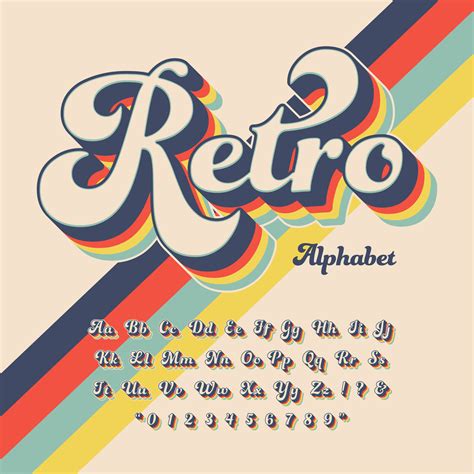
The Resurgence of Retro Font: Why This Unique Aesthetic Is Making Waves in the US
In recent years, a distinctive visual style has been making its way into the mainstream conversation: retro font. This nostalgic typography trend is captivating creative professionals, entrepreneurs, and everyday users alike, sparking curiosity and enthusiasm across the country. With its blend of vintage flair and modern appeal, it's no wonder retro font is becoming increasingly popular in the US. But what's behind this trend, and how can you harness its unique energy?
Why Retro Font Is Gaining Attention in the US
Retro font's growing appeal can be attributed to several factors. The resurgence of interest in vintage aesthetics is, in part, a reaction to the digital overload we all experience. As we spend more time online, the prevalence of digital flatness and sameness can become exhausting. Retro font offers a refreshing alternative, injecting a sense of nostalgia and personality into digital spaces. Furthermore, the shift towards experiential marketing and unique brand storytelling has created a market for distinctive, attention-grabbing visuals. Retro font fits perfectly into this narrative, allowing businesses and individuals to stand out in a crowded online landscape.
How Retro Font Actually Works
At its core, retro font is a typographical style that mimics the aesthetic of vintage typography. Characterized by its distressed, hand-drawn, or optimized texture, retro font aims to evoke a sense of nostalgia and timelessness. This is achieved through a combination of manual design techniques and clever use of technology. By leveraging advanced design software and processing algorithms, retro font designers can replicate the look and feel of manually crafted typography, resulting in a unique visual experience that's both reminiscent of the past and perfectly suited for modern applications.
Common Questions People Have About Retro Font
Q: Is Retro Font Limited to Physical Print?
A: No, retro font has become increasingly prominent in digital applications, including web design, social media, and even video games.
Q: Can I Create My Own Retro Font?
A: While you can experiment with similar techniques, authentic retro font designs often require expertise and specialized software to achieve that distinctive look and feel.
Q: How Do I Integrate Retro Font Effectively?
A: To maximize impact, pair retro font with complementary design elements and consider its use in digital interactions that benefit from a touch of nostalgia, such as Easter eggs, special announcements, or key milestones.
Opportunities and Considerations
While retro font can add a unique charm to various projects, considerations include:
- Compatibility: Ensure that your chosen font is optimized for use across different platforms and compatible with the specific software you're working with.- Originality: Avoid generic or overused designs; instead, focus on creating unique, custom overlays that capture the essence of your brand or message.- Balance: Use retro font judiciously, balancing it with more modern elements to avoid overwhelming the viewer or mixing incompatible styles.
Things People Often Misunderstand
- **Retro is not vintage—It's a distinct aesthetic that incorporates vintage elements.- **Retro font does not equate to low-fi; it's a technological achievement that replicates manual techniques digitally.- Retro typography has become a staple in both print and digital media, not limited to old designs or periods.
Who Retro Font May Be Relevant For
Retro font can add a personal touch to applications that range from:
- Marketing and Branding: Create unique visuals, highlight brand heritage without looking dated, or capture the spirit of a bygone era.- Digital Games and Interactivities: Emphasize nostalgia, longevity, or the timeless appeal of your product through characteristically crafted typography.- Personal Feeds and Communications: Use retro font to personalize and individualize messages in a way that resonates deeply with your audience.